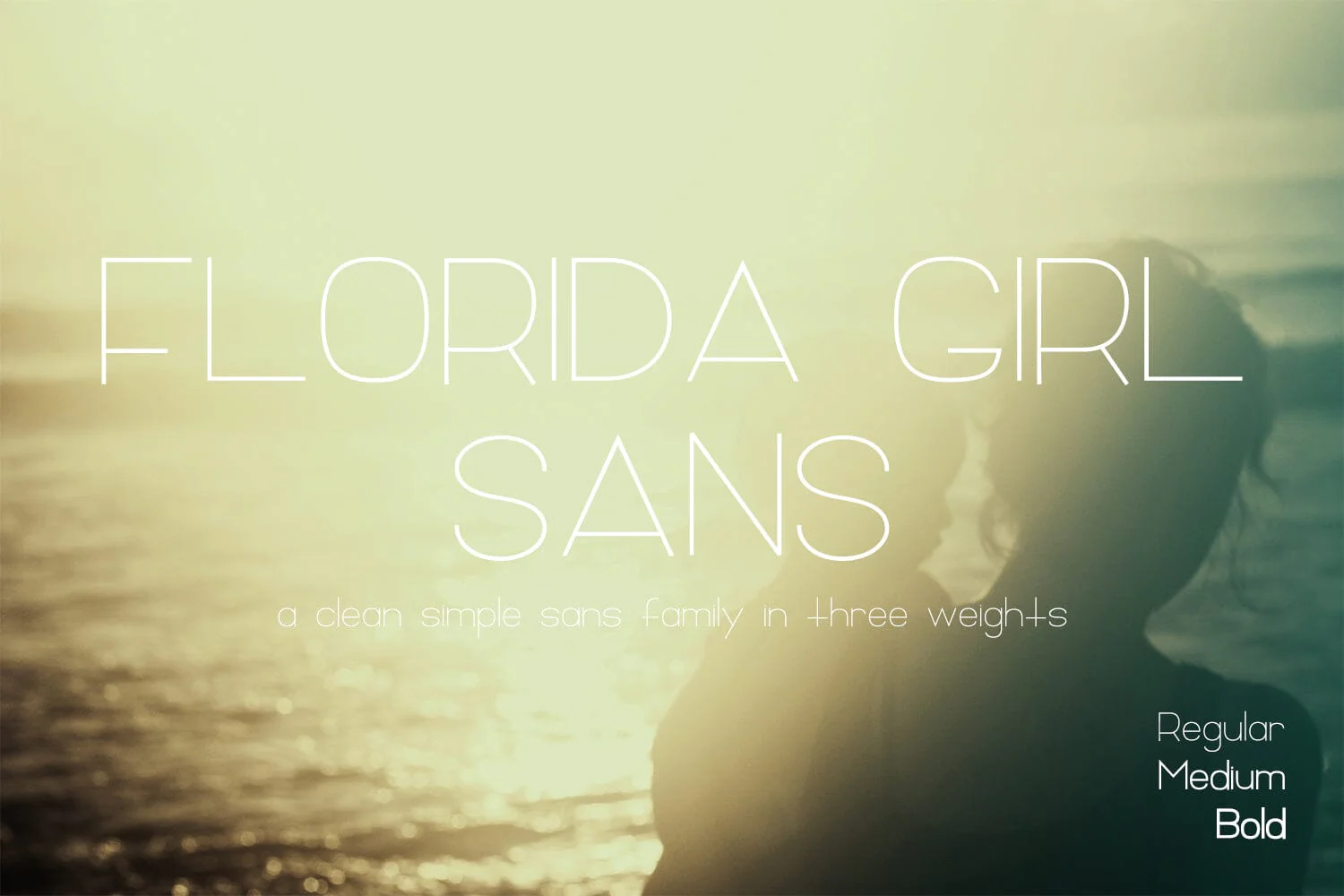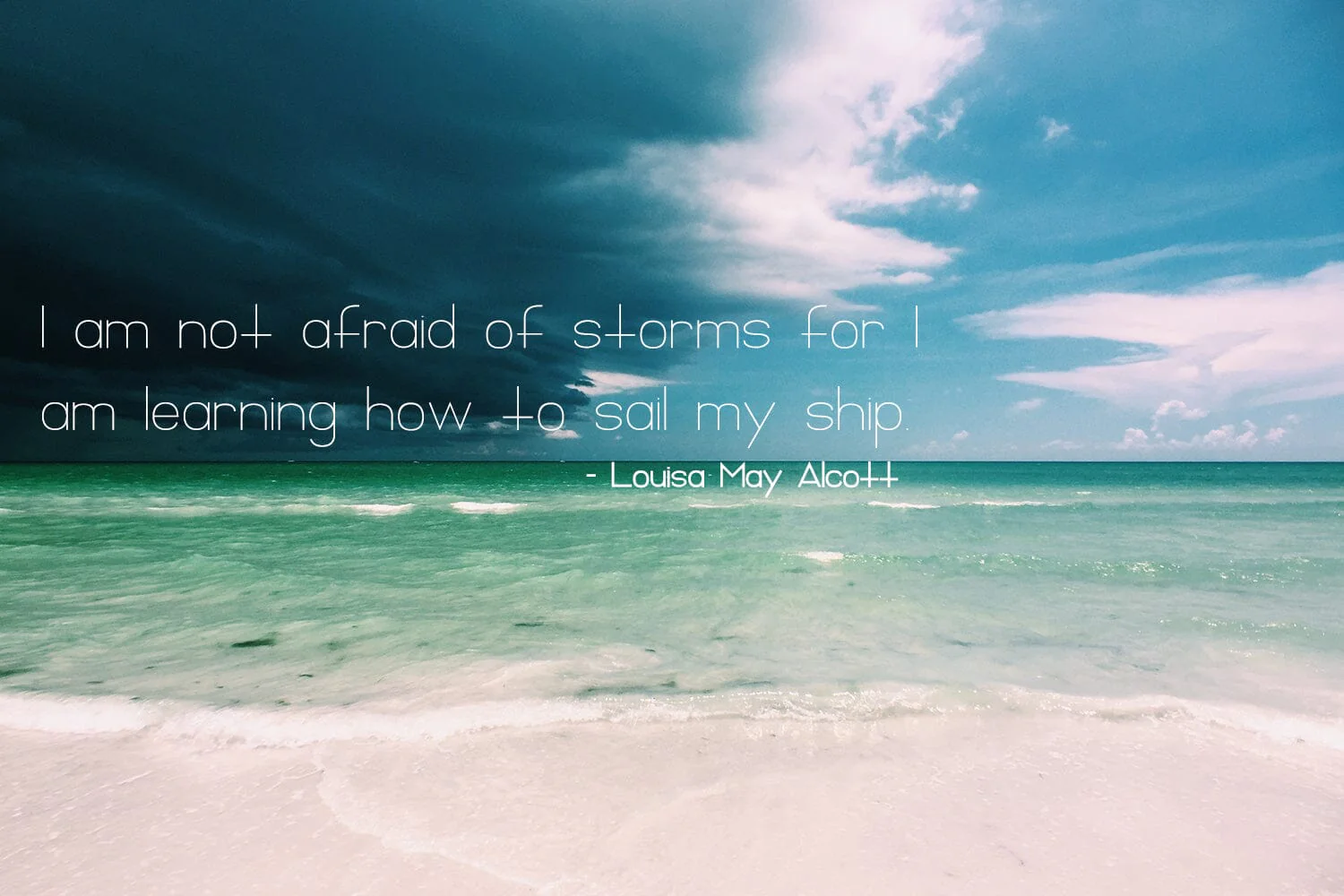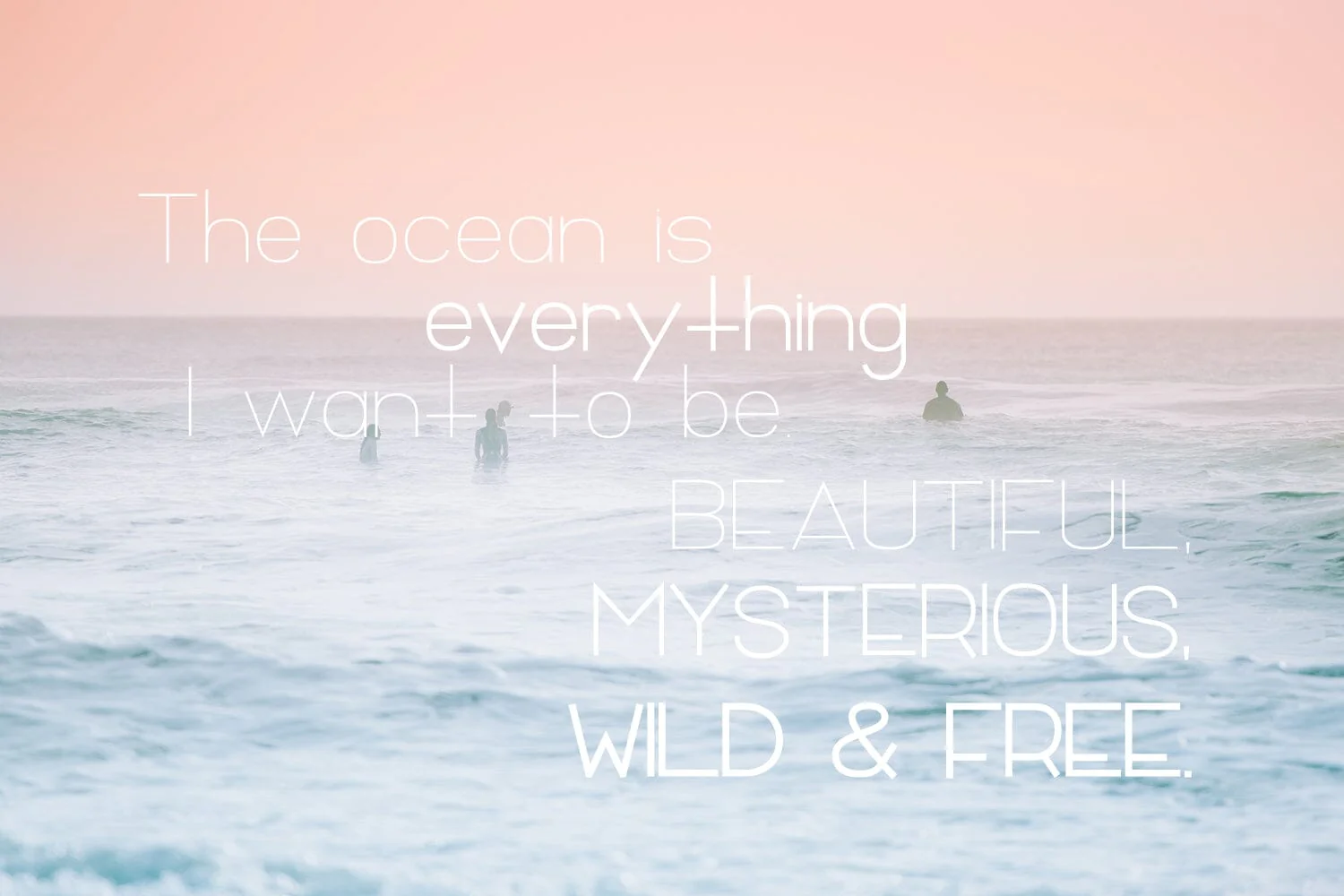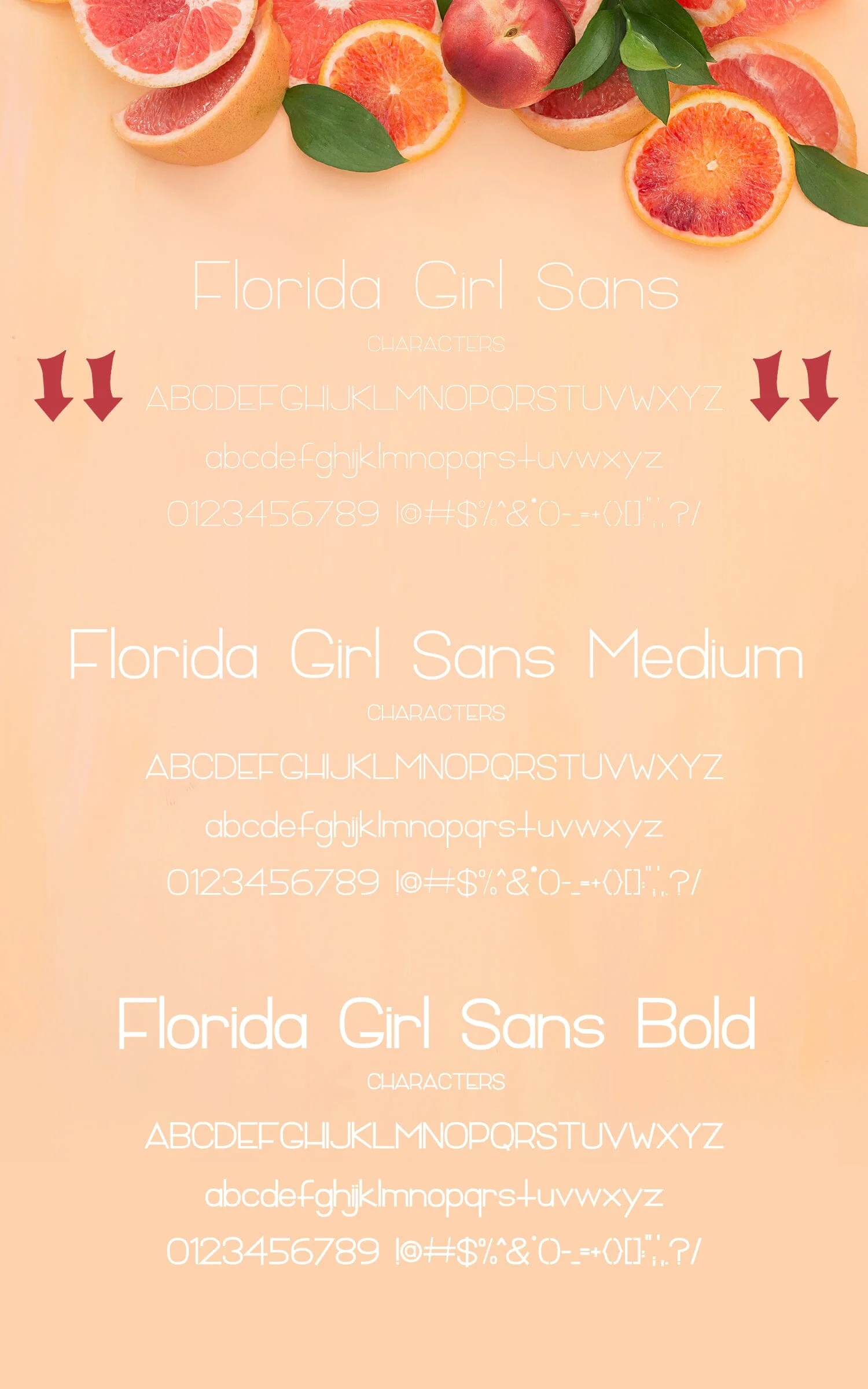
Florida Girl Sans Font Family
Florida Girl Sans is a crisp, simple, clean sans family that includes regular, medium, & bold weights -- that's only $2 a font!